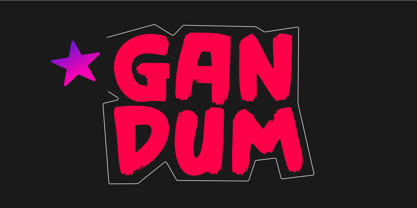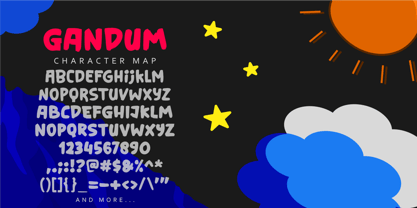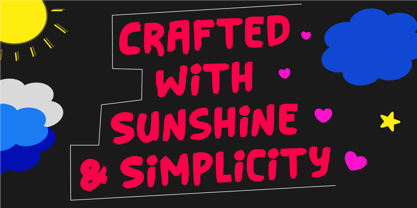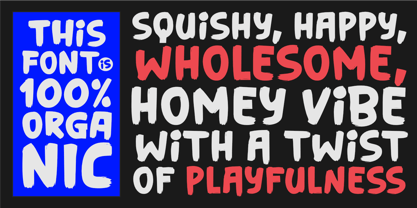
Gandum
by Epiclinez
The Gandum Font Family was designed by Aldy Sidik and published by Epiclinez. Gandum contains 1 styles.
Introducing Gandum, a fun and friendly brush font inspired by the softness of wheat and the spirit of hand-drawn creativity. With its bold strokes and natural flow, Gandum brings a warm, rustic charm to your designs, perfect for anything that needs a personal, handmade touch.
Whether you're crafting a logo design, eye-catching poster, social media graphics, or playful branding, Gandum adds a dose of personality with its handwritten brush style. Each letter feels alive, textured, and expressive—just like words scribbled with joy on a sunny afternoon.
Gandum is ideal for kids' designs, food packaging, book covers, quotes, merchandise, labels, and more. It’s also great for projects that need a casual display font with a bit of heart and energy.
Bring your words to life with the grainy goodness of Gandum, and let your message feel as warm and welcoming as freshly baked bread.
Designers: Aldy Sidik
Publisher: Epiclinez
Foundry: Epiclinez
Design Owner: Epiclinez